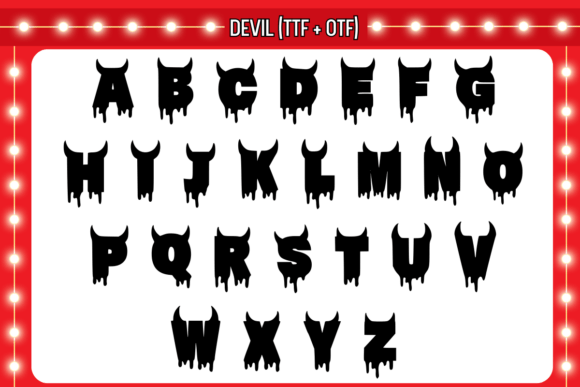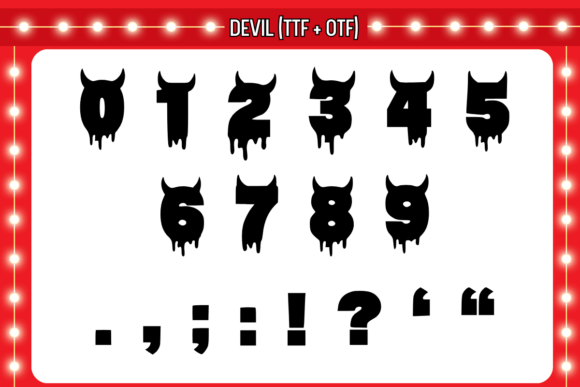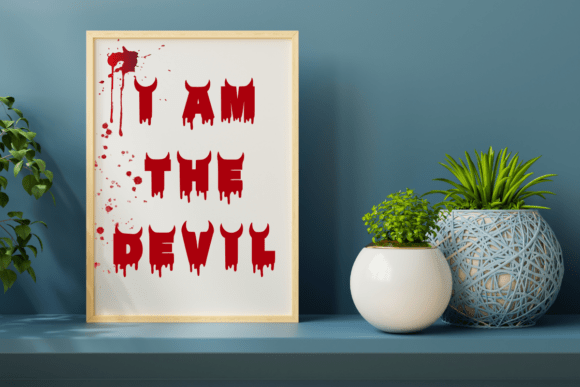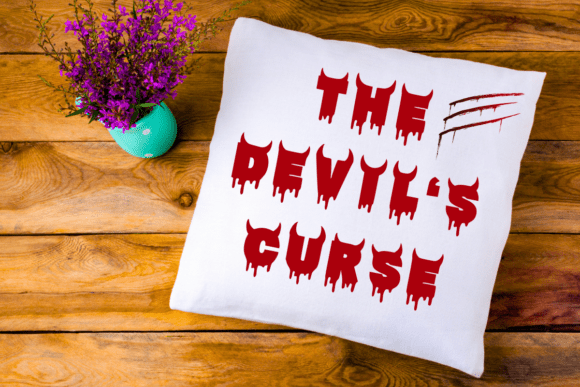
Unleash the Darkness: A Deep Dive into the Devil Font
I’ll never forget the design project that led me to discover the Devil Font. I was working on a Halloween-themed invitation for a haunted house event, and I was struggling to find the perfect font to convey the eerie and sinister vibe. The client wanted something that would make their guests’ skin crawl, but still be legible and eye-catching. After hours of scouring font websites and trying out different fonts, I stumbled upon the Devil Font – a bold, dripping horror display font with wicked horns and blood-soaked vibes. It was love at first sight!
Here’s what I love about the Devil Font:
- ✨ Bold and attention-grabbing: The Devil Font is perfect for making a statement. Its bold, dripping letters demand attention and set the tone for a spooky and eerie design.
- ✅ Versatile: Despite its horror theme, the Devil Font can be used for a variety of creative projects, from Halloween designs to metal band logos and horror movie posters.
- 👻 Gory drips and sharp edges: The font’s gory drips and sharp edges add a level of edginess and terror to any design, making it perfect for spooky creative projects.
And here are a few quirks to keep in mind:
- 🤔 Legibility at small sizes: While the Devil Font is stunning at large sizes, it can be a bit tricky to read at smaller sizes. Be sure to test it out at different sizes to ensure it works for your project.
- ⚠️ Limited use cases: While the Devil Font is versatile, it’s not suitable for every project. Be mindful of your design’s tone and audience before using this font.
The Devil Font was inspired by the darker side of design – think horror movies, haunted houses, and metal music. The designer wanted to create a font that would evoke a sense of fear and unease, while still being legible and usable. The result is a font that’s both terrifying and beautiful.
| What type of projects is the Devil Font best suited for? | The Devil Font is perfect for Halloween designs, metal band logos, horror movie posters, haunted house invites, or anything that screams eerie and sinister. |
| Is the Devil Font difficult to read? | While the Devil Font is bold and attention-grabbing, it can be a bit tricky to read at smaller sizes. Be sure to test it out at different sizes to ensure it works for your project. |